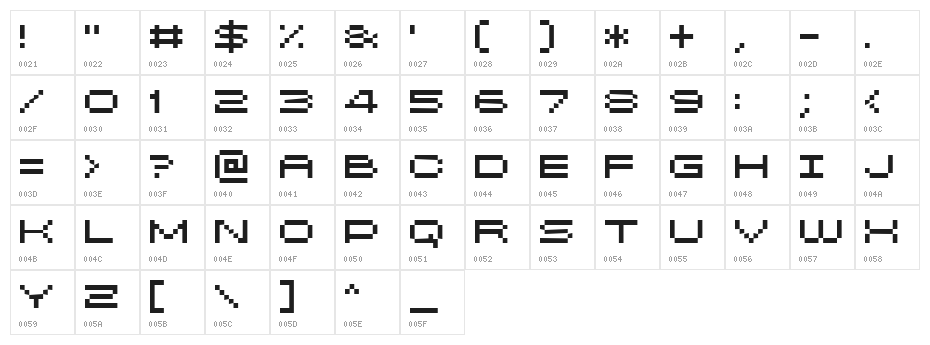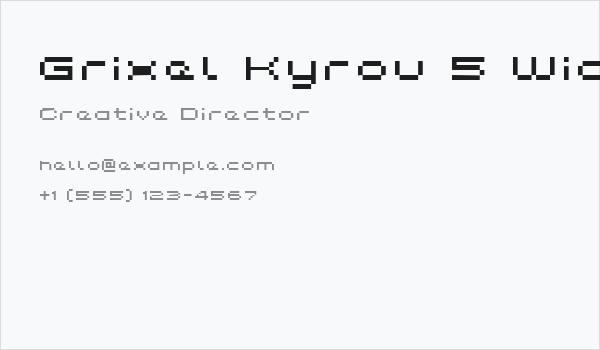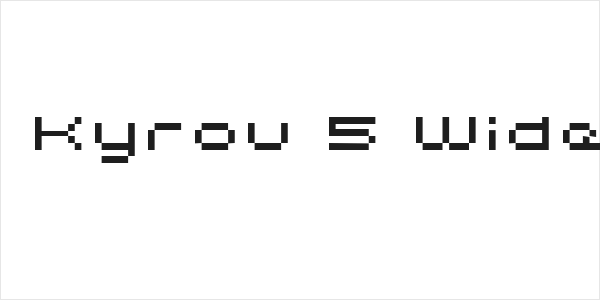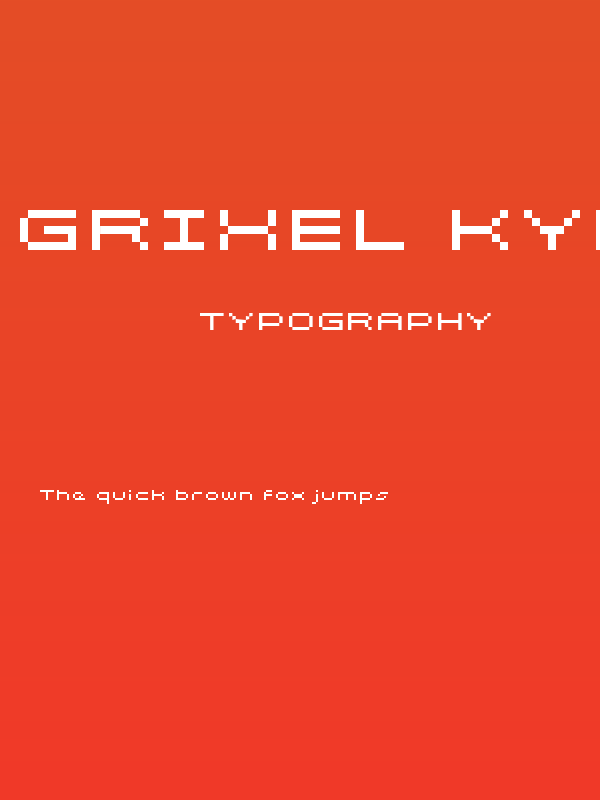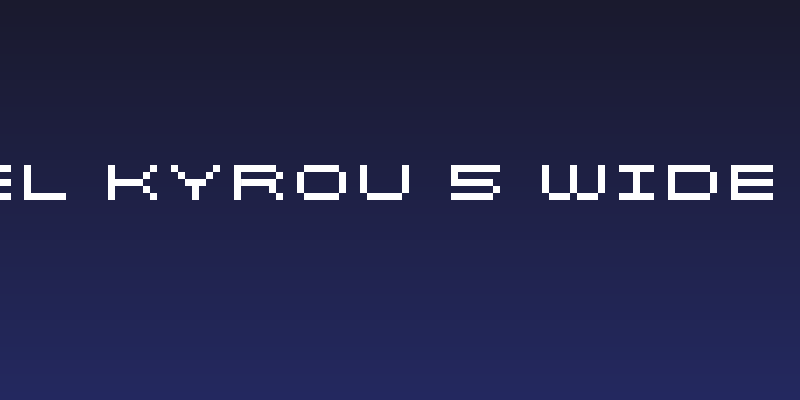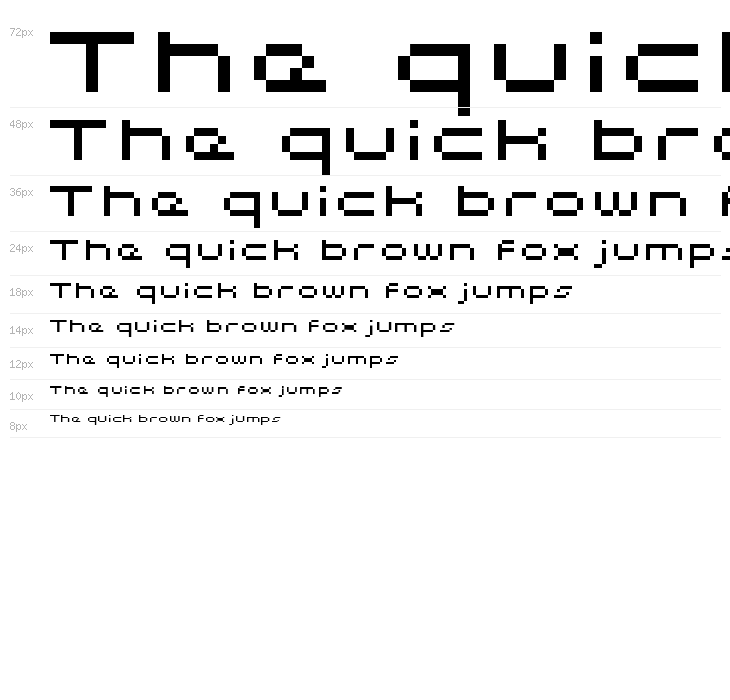
Grixel Kyrou 5 Wide Xtnd Font
Grixel Kyrou 5 Wide Xtnd Description
This font features a pixelated, blocky design reminiscent of early digital and video game aesthetics. Each character is constructed with a grid-like precision, giving it a distinctly retro and technological feel. The uppercase and lowercase letters maintain a consistent height, enhancing readability while preserving the font's unique style. Numbers and special characters follow the same pixelated pattern, ensuring uniformity across all glyphs. The font's geometric structure makes it ideal for projects that aim to evoke nostalgia or a digital theme.
| Use Case | Logos, Headlines, Digital Art |
| Proposed Projects | Ideal for retro video games, digital art projects, tech-themed posters, and nostalgic branding. |